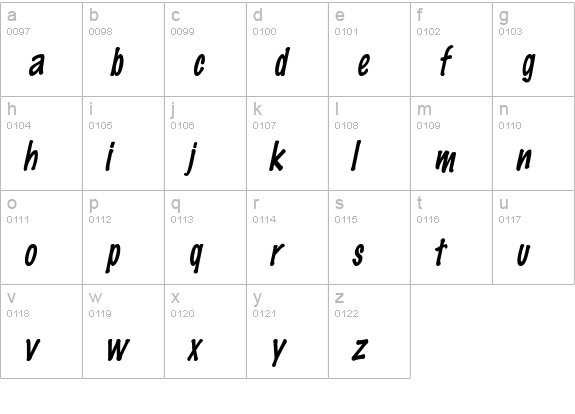
MarkerCondensed Italic Font Details
MarkerCondensed Italic is a distinctive, italic variant in the MarkerCondensed typeface family \xE2\x80\x94 well suited to design and typography projects.
MarkerCondensed Italic is a unique and eye-catching font that adds a touch of creativity and playfulness to any design project. With its slanted and exaggerated strokes, this font exudes a sense of movement and energy, making it perfect for conveying a dynamic and modern feel. The condensed nature of this font allows for efficient use of space, making it ideal for headlines, titles, and other areas where you need to make a bold statement. The italicized style adds an extra touch of elegance and sophistication, making your text stand out from the crowd. Whether you are designing a poster, logo, website, or any other visual element, MarkerCondensed Italic is sure to make a lasting impression. Its distinctive and unconventional appearance will capture the attention of viewers and leave a memorable impact. But the best part? MarkerCondensed Italic is freely available to download at FontsMarket.com. You can easily access this font and incorporate it into your projects without any hassle. Its availability for free allows you to experiment and explore various design possibilities, ensuring that your creations are truly unique and one-of-a-kind. So why wait? Enhance your designs with the captivating essence of MarkerCondensed Italic. Download it today from FontsMarket.com and let your creativity soar to new heights.